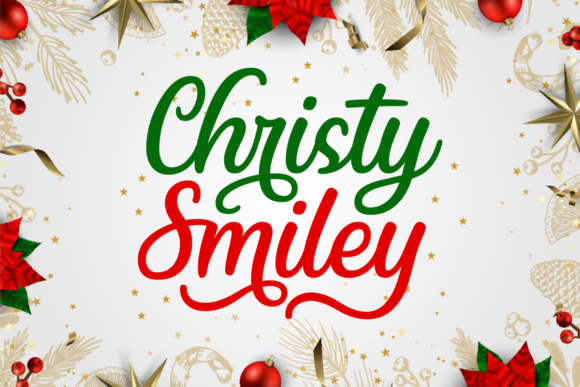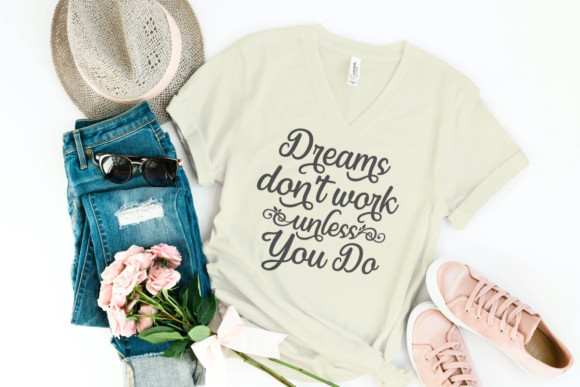
Christy Smiley Font
Christy Smiley is a friendly, fresh, rich, and elegant handwritten font. It is ideal for holiday-themed greeting cards and for any crafting project that requires a romantic touch.